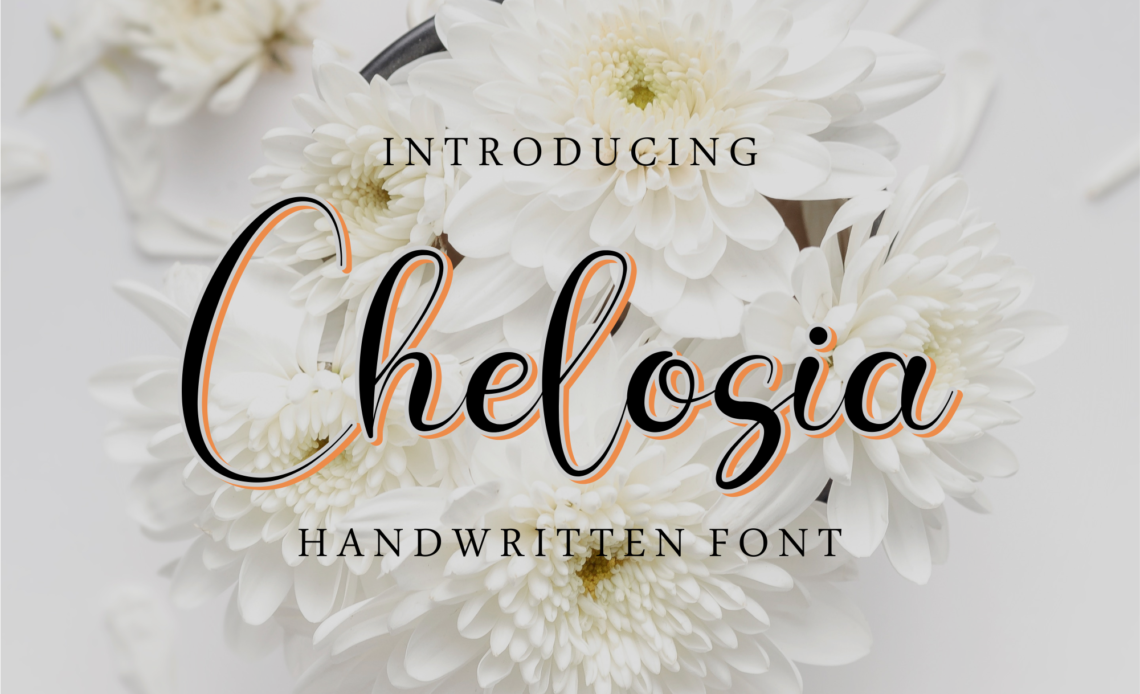
Feast your eyes on Chelosia, the exquisite script font that dances across your designs like a love letter penned with heartfelt emotion. Handcrafted by the talented artisans at Bluestudio, this font exudes an allure that is both approachable and captivating, entangling you in its romantic embrace.
With every stroke, Chelosia weaves a tale of elegance and sophistication, whispering secrets of love and desire. Its sweeping curves and delicate flourishes evoke a sense of nostalgia, reminiscent of handwritten letters exchanged between star-crossed lovers. The font's readability lends itself effortlessly to a myriad of creative endeavors, inviting you to paint your own masterpieces.
Write love poems that ignite the heart with passion, design wedding invitations that capture the essence of eternal devotion, or create logos and branding that radiate charm and allure. Chelosia is not merely a font; it is an orchestra of emotions, a symphony of style, inviting you to conduct your own compositions of beauty and charm.
Dive into Chelosia's boundless versatility, where your imagination roams free. Craft social media posts that pop with personality, elevate your blog with a touch of handwritten elegance, or craft stunning digital art that captivates the senses. With Chelosia as your creative companion, there are no limits to the enchanting designs you can bring to life.
So embrace Chelosia, the script font that sparks romance and kindles creativity. Let its enchanting strokes guide your designs towards new heights of brilliance. Experience the magic of Chelosia and let your heart be swept away by its timeless beauty.